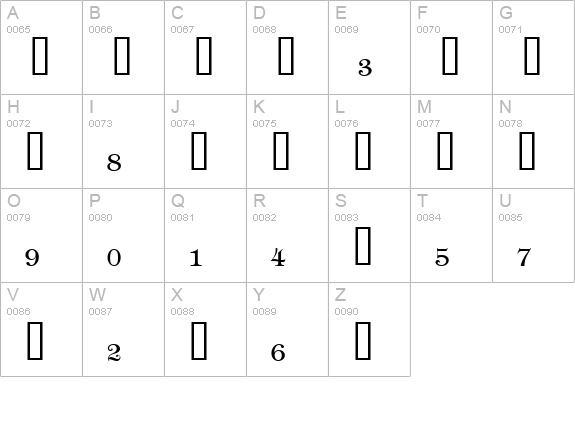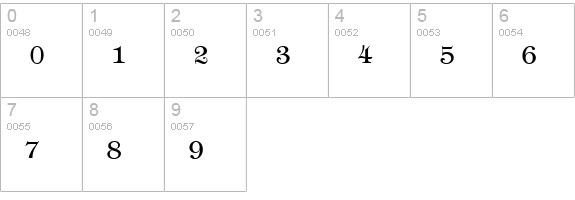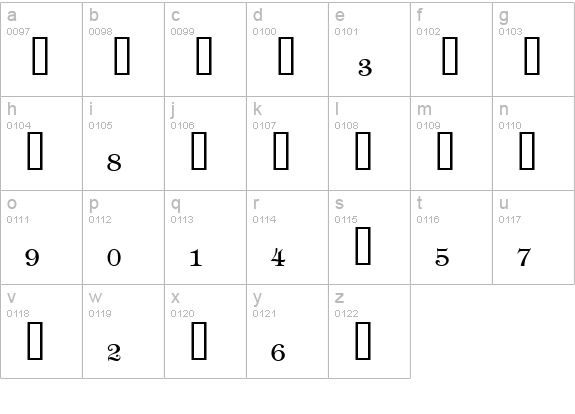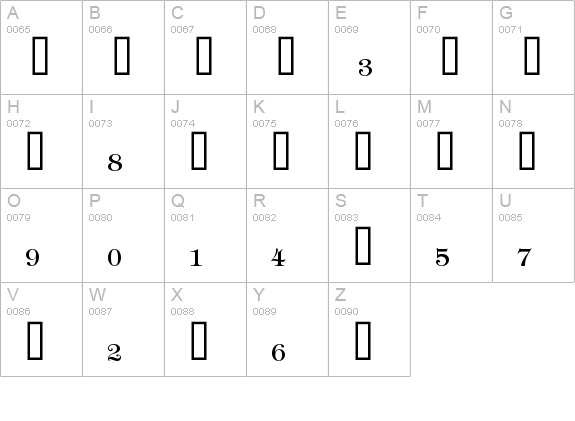
Introducing Cambridge Fractions font, a sophisticated and elegant typeface designed for expressing fractions with clarity and style. This exquisite font features delicate details and precise proportions, making it the perfect choice for any project that requires a touch of refinement and professionalism. The Cambridge Fractions font is meticulously crafted to ensure seamless integration of fractions into your text, enhancing readability and aesthetic appeal. Best of all, Cambridge Fractions font is available for free download at FontsMarket.com, allowing you to effortlessly elevate your design projects without any additional cost. Don't miss out on the opportunity to enhance your work with this exceptional font that combines functionality with beauty. Download Cambridge Fractions font today and experience the difference it can make in your designs.